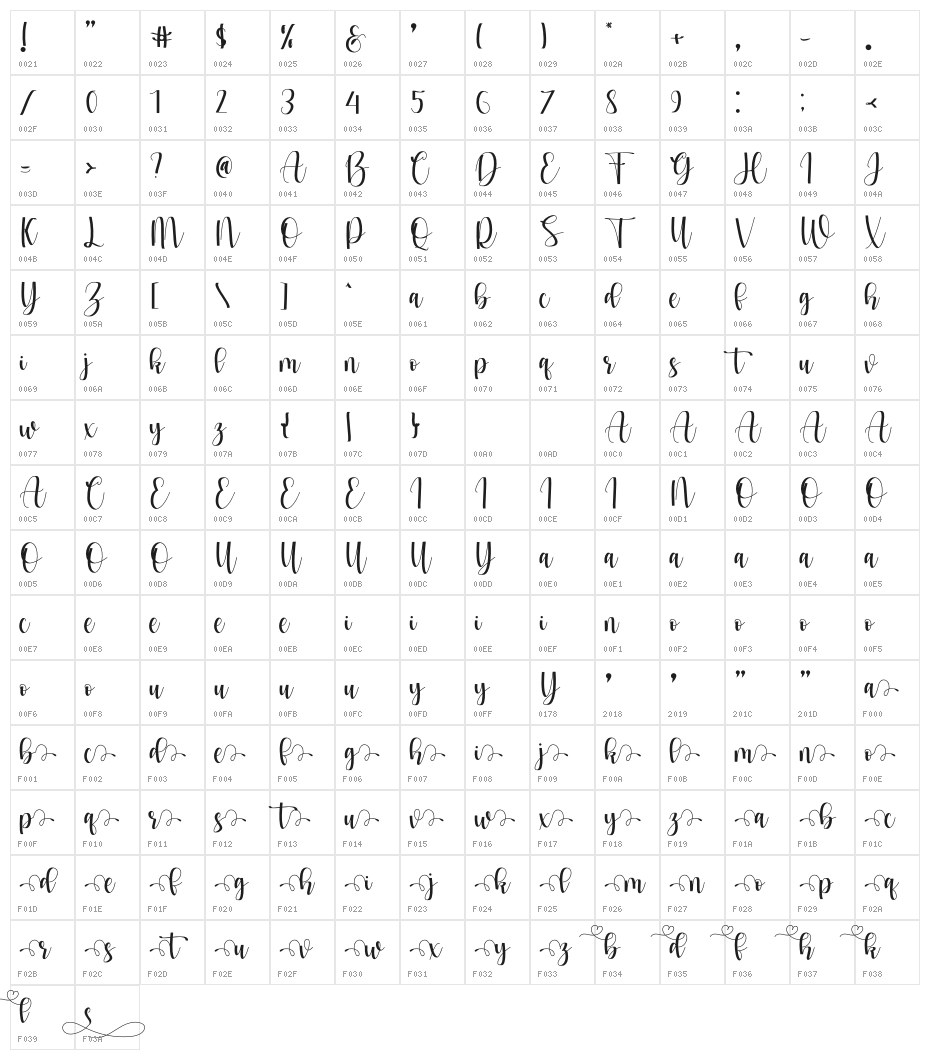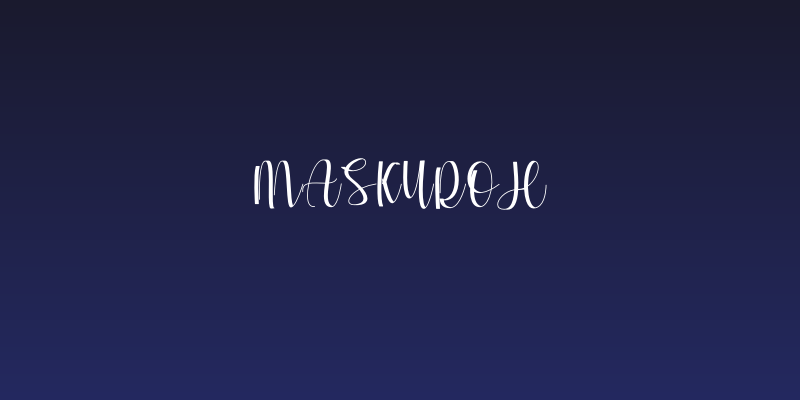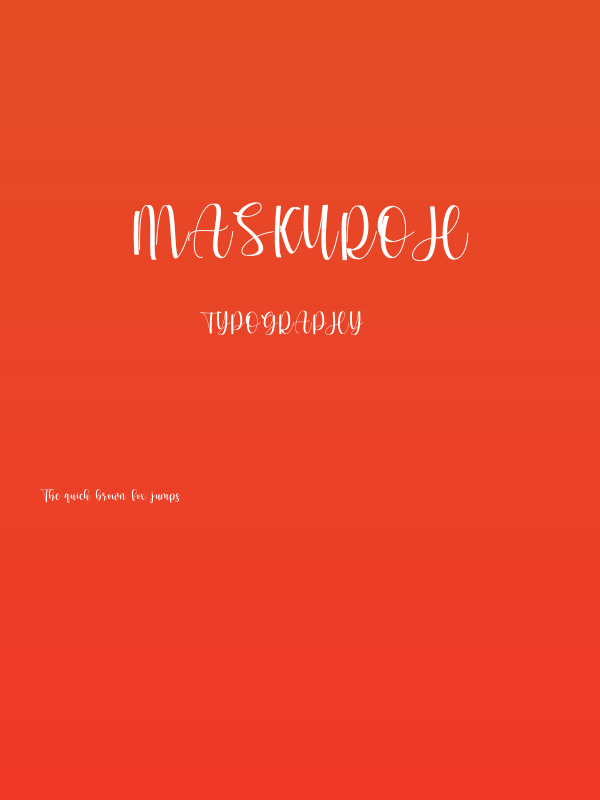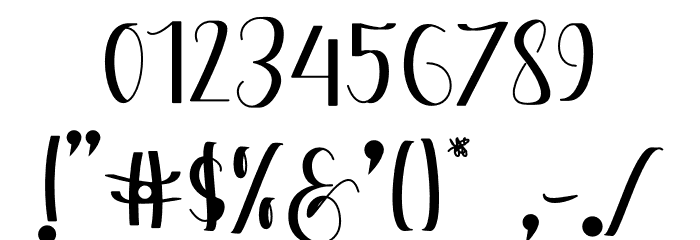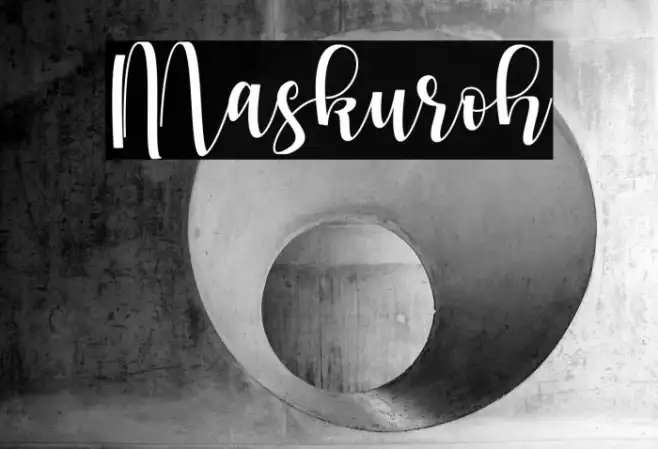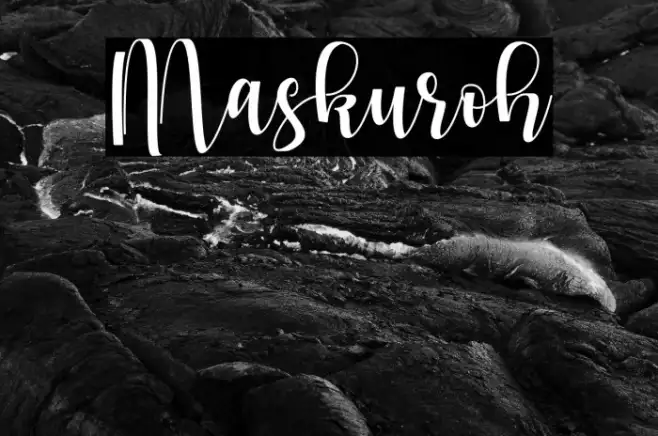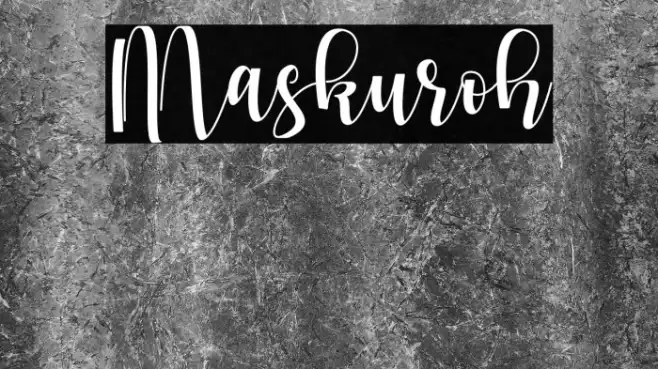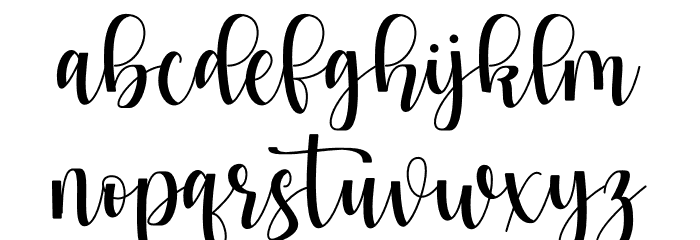
Maskuroh Font
Maskuroh Description
This font features a flowing, cursive style with elegant loops and swirls, giving it a sophisticated and artistic appearance. The uppercase letters are tall and graceful, with a slight slant that adds to their dynamic feel. The lowercase letters maintain a consistent flow, with smooth connections between characters, enhancing readability while retaining an artistic flair. The numerals are stylish and align well with the overall cursive theme, offering a unique touch to any design. Special characters are creatively designed, maintaining the font's elegant and decorative style.
| Proposed Projects | Ideal for wedding invitations, greeting cards, branding, and elegant logo designs. |